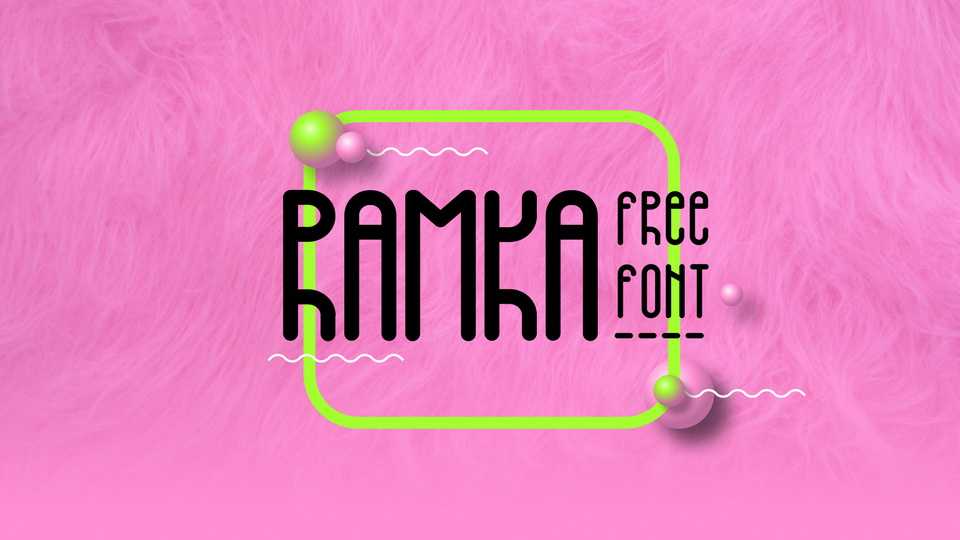
Download Ramka font, a charming display typeface featuring condensed forms and a playful mix of geometric construction and cute letterforms. Ramka font is an ideal option for outstanding branding and logos, packaging, posters and creative typography compositions.
Designer: Elena Voynova